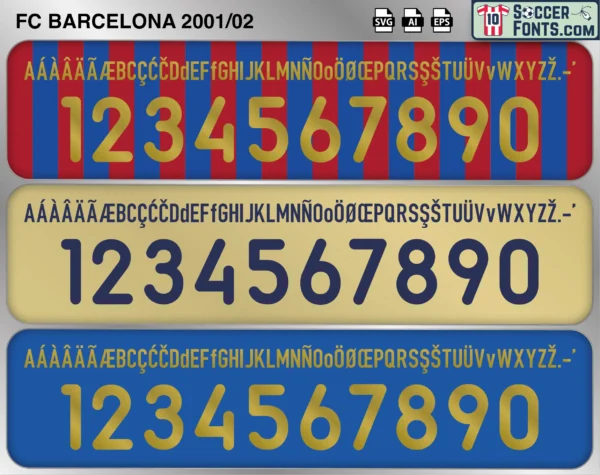
FC Barcelona 2001-02 Font
The FC Barcelona 2001-02 font is an editable soccer jersey lettering design in vector format inspired by the FC Barcelona kit style used during the 2001-02 football season. This football font artwork is prepared for football shirt recreations, custom jersey projects, football kit mockups and sports graphic design workflows.
The FC Barcelona 2001-02 font became associated with a memorable UEFA Champions League campaign in which Barcelona reached the semi-finals. The tournament provided opportunities for emerging talents such as Xavi and Puyol to gain valuable experience alongside established stars, helping shape the foundations of future success. Although the club did not secure a major trophy, the season played an important role in the development of players who would later become central figures in Barcelona history. FC Barcelona shirts from the 2001-02 season remain highly regarded among football shirt enthusiasts because of their connection to the early careers of future legends, memorable Champions League matches and an era that bridged the gap between the club’s late-1990s teams and the generation that would dominate world football in the years ahead. The FC Barcelona 2001-02 font reflects that important transitional chapter in club history.